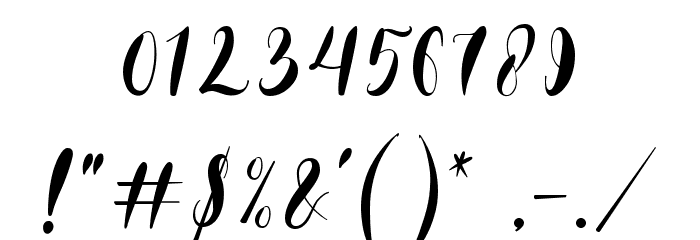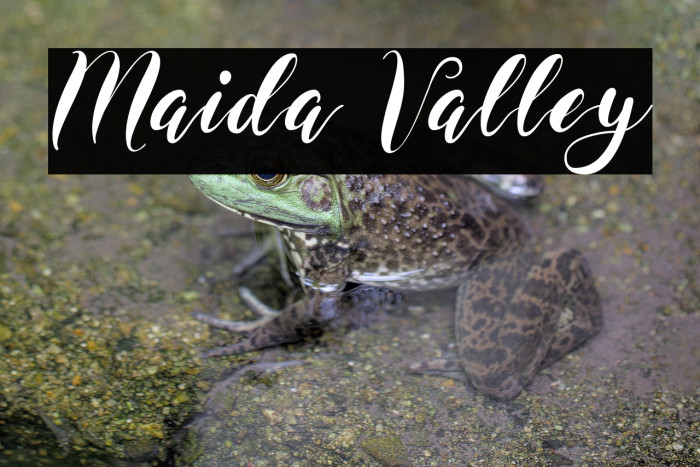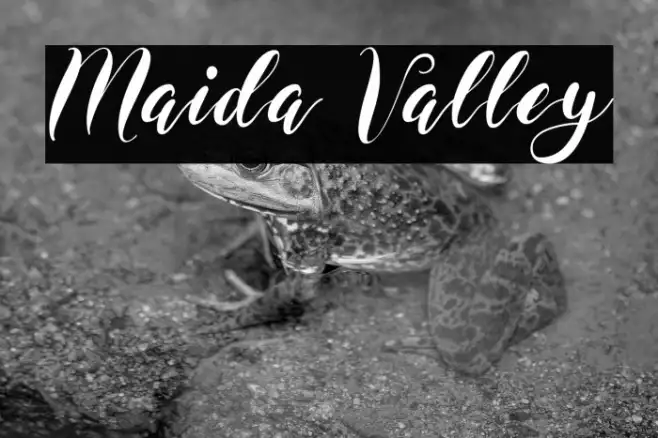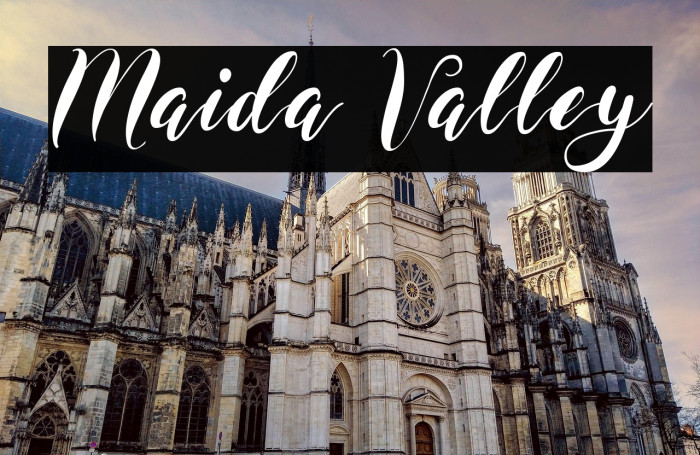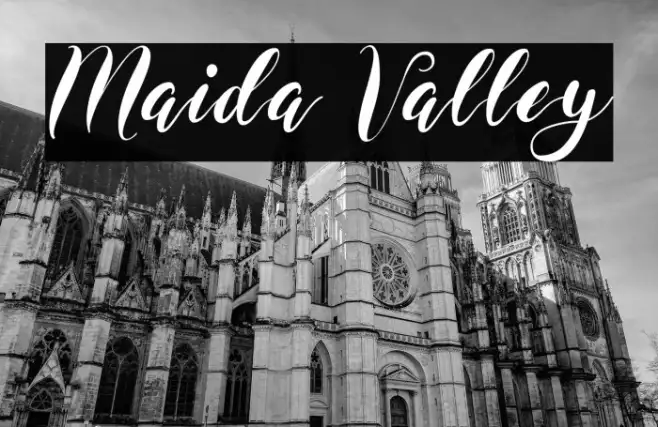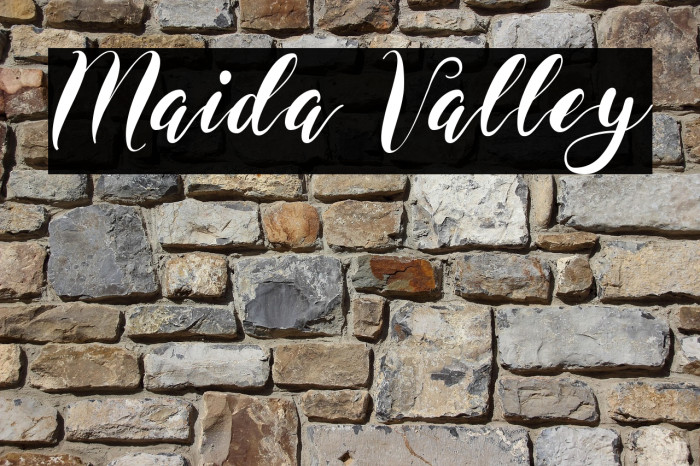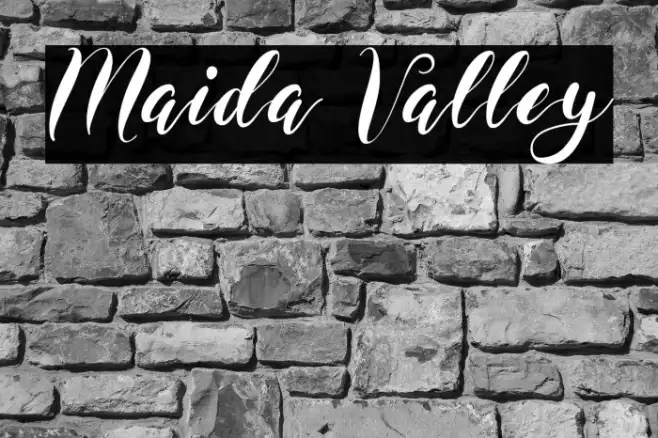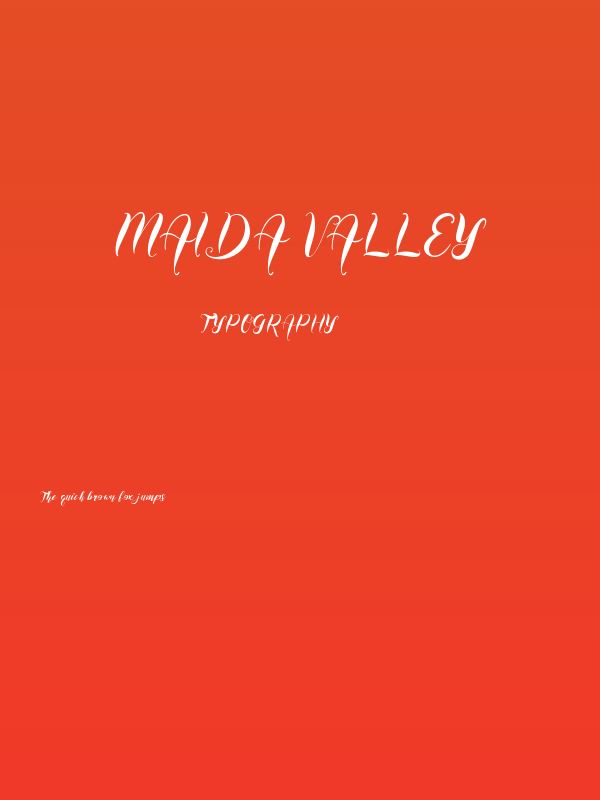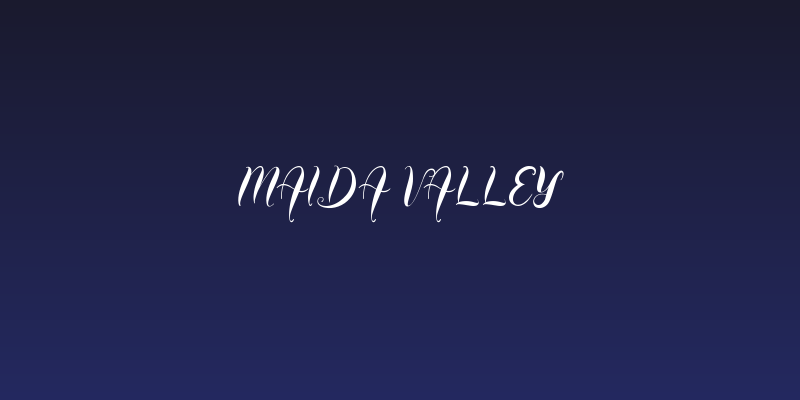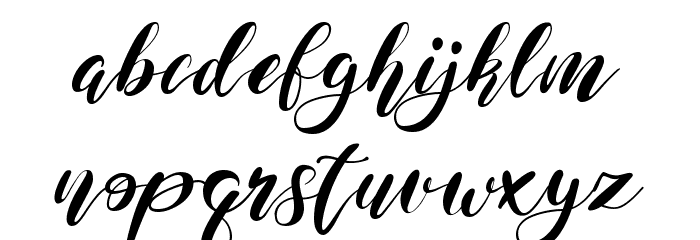
Maida Valley Font
Maida Valley Description
This elegant script font features flowing, cursive letters with a distinct calligraphic style. The uppercase characters are ornate, with sweeping curves and flourishes that add a touch of sophistication. The lowercase letters maintain a consistent fluidity, enhancing readability while preserving the decorative essence. Numbers and special characters are designed with the same attention to detail, ensuring a cohesive look across all text elements. The font's overall aesthetic is both graceful and dynamic, making it suitable for a variety of creative applications.
| Proposed Projects | Ideal for wedding invitations, elegant branding, greeting cards, and decorative headlines. |